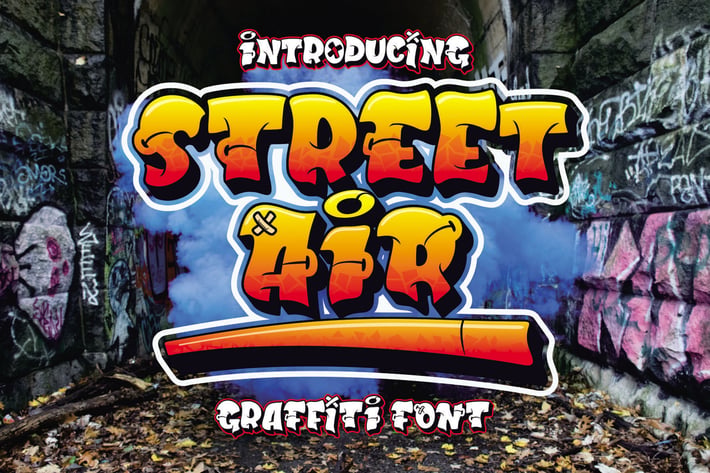
Street Air - Urban Graffiti Font
Street Air is a unique display font with a graffiti-like appearance. Use this font for any crafting project, logotype, advertising, wall decoration, and pretty much anything that requires a personalized look. Take your designs to the next level with this stunning font!